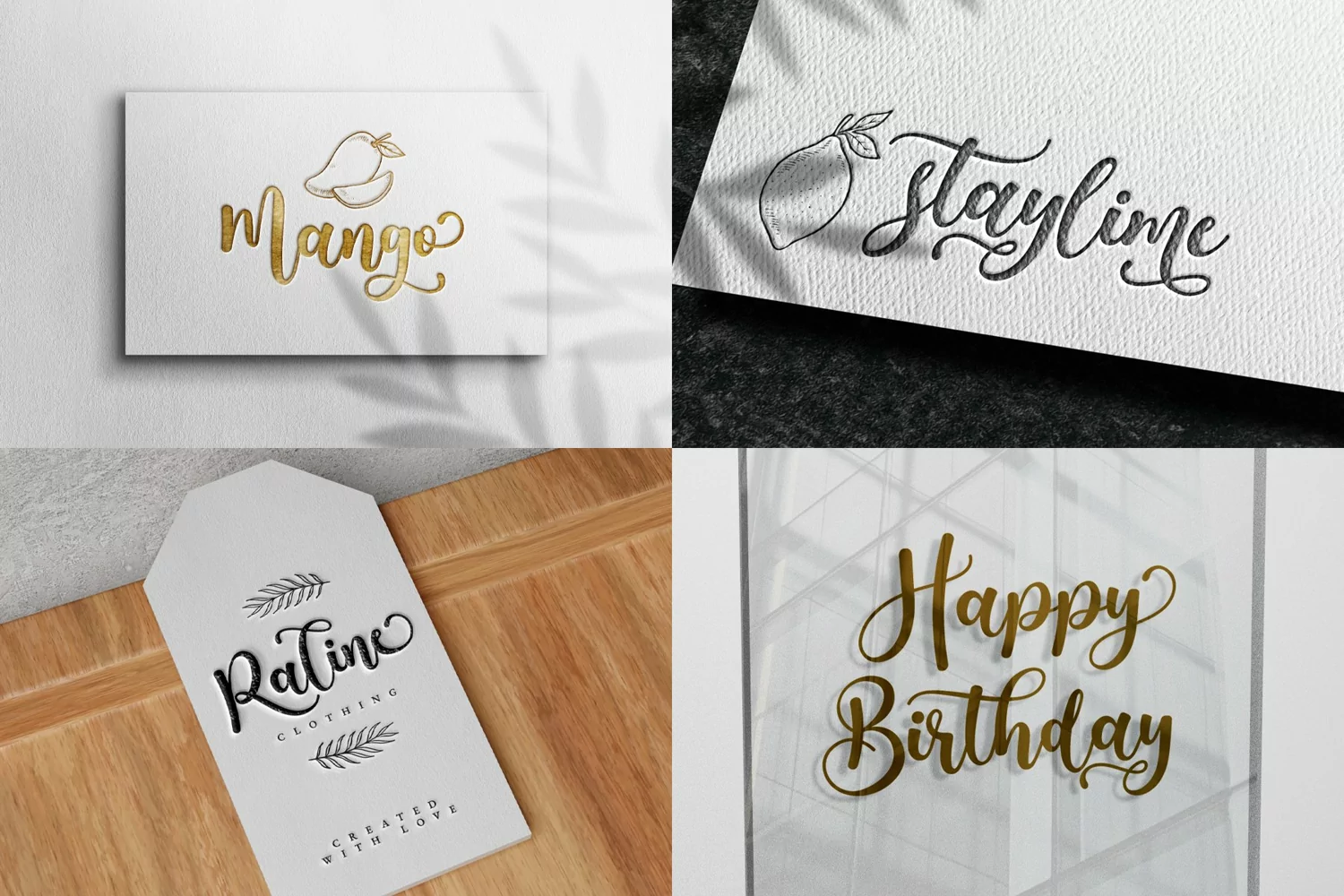
Patrick - Modern Script Handwritten Font
Patrick is bold and bouncy script font. It is modern, delicate, and elegant. It will enhance the the beauty of your design.
Patrick is perfect font for any projects, such as wedding design, invitation, birthday, t-shirt design, crafting, sticker, sublimation, and many more.
- Uppercase & Lowercase (include PUA-Encoded extra glyphs)
- Numeral and Punctuation
- Most Multilingual Accent